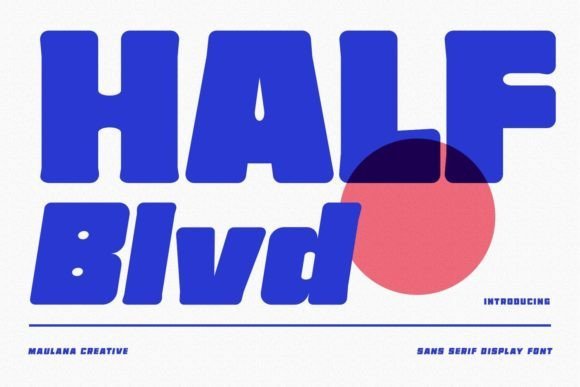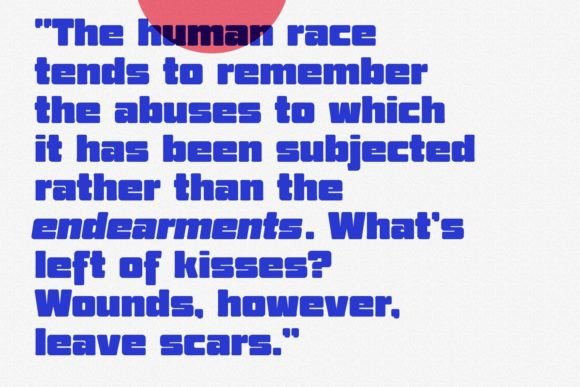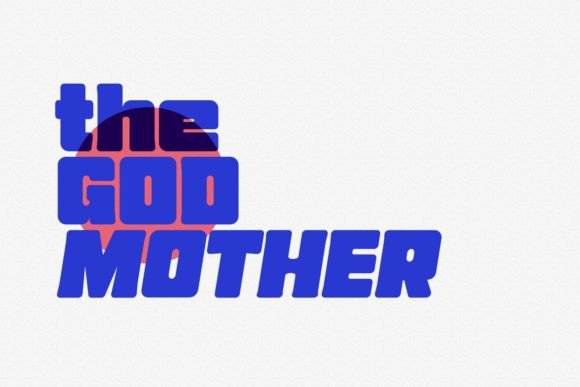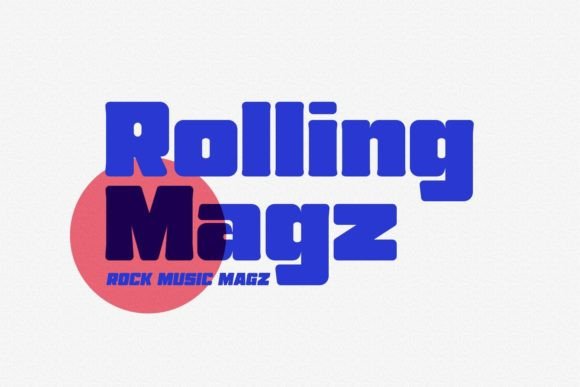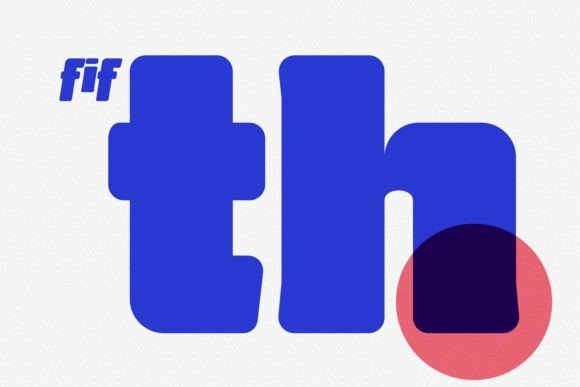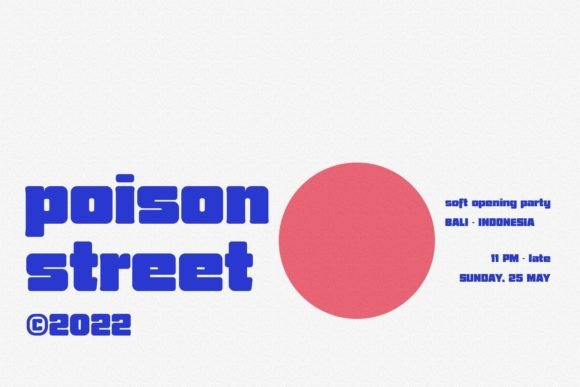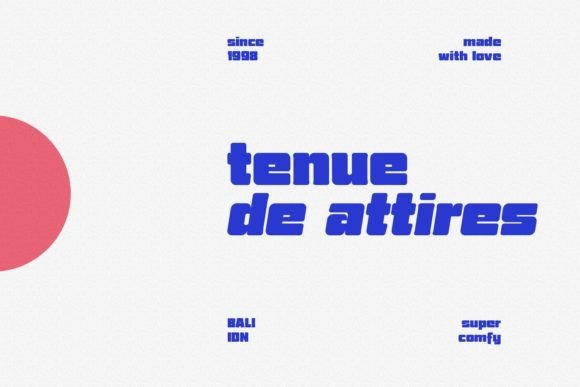
Unlock the Power of Half Blvd Font: Where Creativity Meets Industrial Chic
Have you ever sat at your desk, staring at a blank canvas, trying to come up with the perfect design concept? You know, that moment when the creative juices are flowing, but the words just won’t come together? That’s where Half Blvd Font comes in – a game-changing, industrial genre display sans serif font that’s about to revolutionize your design workflow.
With its bold, soft round edge strokes and playful character, Half Blvd Font is the perfect addition to any designer’s toolkit. Whether you’re working on a logo design, social media campaign, or book title, this versatile font is sure to impress. And with its PUA encoding, you’ll have access to a world of amazing glyphs and ligatures at your fingertips.
Half Blvd Font Key Features
- Font Family: Half Blvd Font is a sans-serif font family designed for digital use.
- Font Size: The font family includes various weights, ranging from 100 to 900, offering flexibility for different design requirements.
- Unique Characteristics: Half Blvd Font features a clean and modern design with a subtle rounded edge, making it suitable for a wide range of applications, including digital interfaces, signage, and branding materials.
Half Blvd Font Review
I recently had the chance to work with the Half Blvd Font and I must say it’s a mixed bag. Let’s dive into what works and what doesn’t.
- Casual Vibes – This font is perfect for projects that need a laid-back, relaxed feel. It’s great for titles, headings, and body text.
- Legibility – Despite its casual nature, the font is surprisingly legible, even at smaller font sizes.
- Unique Character – The Half Blvd Font has a distinct personality that sets it apart from more common fonts.
- Limited Use Cases – While it’s great for casual projects, the font may not be the best choice for formal or professional projects.
- Not Ideal for Small Text – While it’s legible, the font can become blurry at very small font sizes.
- Lack of Stylistic Alternates – If you’re looking for a font with a lot of stylistic options, Half Blvd may not be the best choice.
Overall, I think the Half Blvd Font is a solid choice for projects that need a casual, laid-back feel. While it has its limitations, it’s a great option for creatives who want a unique and legible font. Just be mindful of its use cases and limitations.
Tips for Getting the Most Out of Half Blvd Font
Use Half Blvd Font for headings and titles to add a touch of elegance.
Combine Half Blvd Font with other fonts to create a unique and stylish look.
Half Blvd Font is perfect for:
– Designing invitations and event materials
– Creating a brand identity for your business
– Adding a touch of sophistication to your resume or portfolio
– Designing a stylish logo or letterhead
Alternatives to “Half Blvd Font”
Inter Font is a modern sans-serif typeface designed for digital use. It’s suitable for a wide range of applications, including body text, headings, and titles. Inter Font is clean, elegant, and highly legible, making it an excellent choice for modern designs.
Compared to Half Blvd Font, Inter Font has a more geometric and minimalist appearance. While Half Blvd Font has a more rounded and friendly feel, Inter Font is more suitable for corporate and professional designs.
Montserrat Font is a geometric sans-serif typeface designed for urban environments. It’s highly legible and versatile, making it suitable for a wide range of applications, including body text, headings, and titles.